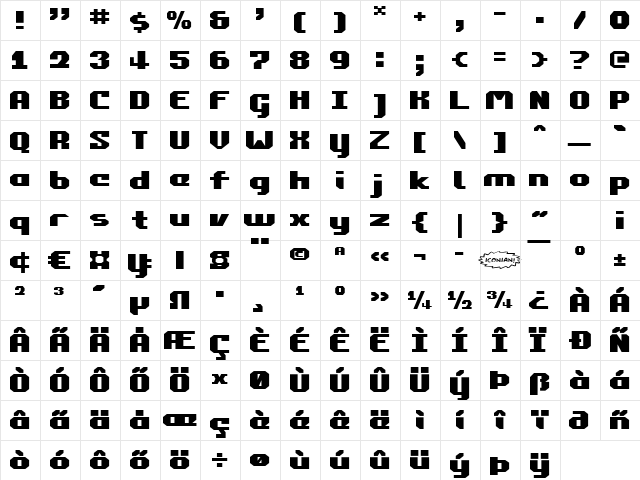
Commonwealth Expanded Expanded
Design Context for Commonwealth Expanded Typeface
Commonwealth Expanded offers clean, dependable letterforms without strong stylistic allegiance, making it a practical choice for designers who need flexibility.